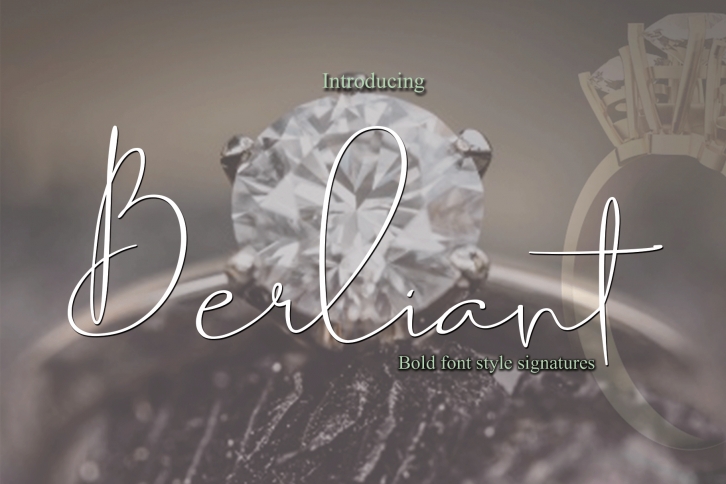
Berliant is a beautiful font that was designed by Naqsya. It's a great choice for designers and creatives who need such a font. It was released on April 25, 2019 and the file size is 19.87 MB. Berliant may give a more youthful, expressive and casual look to your project. It is a very beautiful, refined, elegant, and high-quality font.